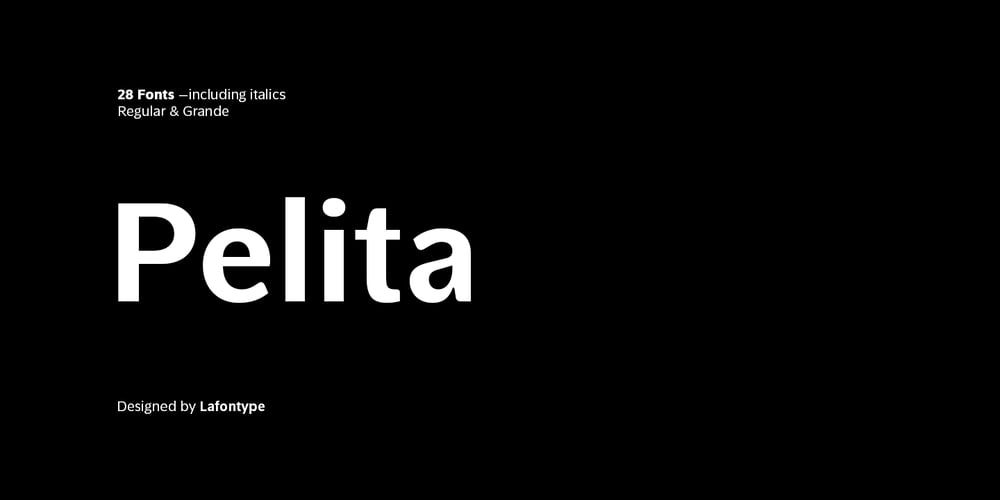
Pelita Font Family was designed by Anugrah Pasau and published by Lafontype. Pelita contains 28 styles and family package options. Pelita is a sans serif family which is divided into 2 sub-families, Regular and Grande. Pelita is designed with a terminal that forms a curved angle on one side so as to give the impression of representing firmness and softness. The grande version is a modified version of the main version, but is designed more streamlined with curves and more extreme angles.